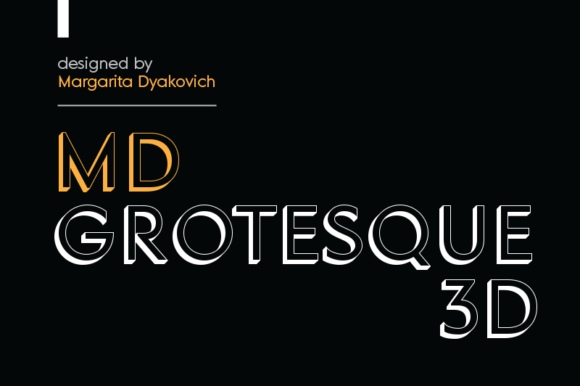
MD Grotesque 3D Font
MD Grotesque 3D Font is perfect for modern design studios, architectural visualization firms, three-dimensional design companies, contemporary product design agencies, futuristic tech brands, and cutting-edge creative platforms. Its dimensional character makes it ideal for 3D printing services, virtual reality companies, architectural modeling firms, product visualization studios, dimensional art galleries, and any project requiring spatial depth with modern design excellence and three-dimensional sophistication appeal.
This font is exciting because it transforms traditional two-dimensional typography into captivating three-dimensional visual experiences while delivering exceptional functionality for brands operating in spatial design, architectural visualization, and dimensional creative industries. The dimensionally crafted letterforms leap off the page with depth and spatial presence, creating typography that literally adds another dimension to communications and resonates with audiences who appreciate spatial design and three-dimensional thinking.
The MD Grotesque 3D Font family typically includes Light, Regular, Medium, and Bold weights with dimensional alternates, spatial ligatures, and three-dimensional elements that enhance its architectural personality. This comprehensive collection enables spatial design professionals to create authoritative brand systems that maintain dimensional credibility while offering creative flexibility for various 3D applications requiring both spatial authority and contemporary design market positioning.
Whether you're developing identity systems for architectural firms, creating materials for 3D design services, or designing promotional content for dimensional visualization companies, MD Grotesque 3D Font Free Download delivers the spatial sophistication and dimensional appeal that connects with audiences seeking cutting-edge design solutions and three-dimensional excellence. Its dimensional presence ensures memorable brand recognition across digital platforms and print materials, making it perfect for websites, mobile applications, and design campaigns that celebrate spatial innovation, architectural vision, and the transformative power of three-dimensional design with contemporary standards and authentic dimensional expertise.